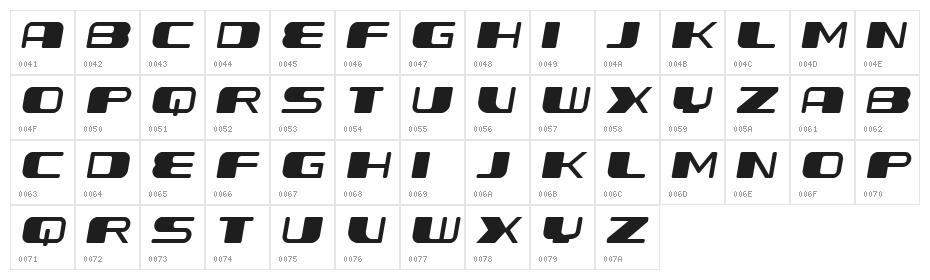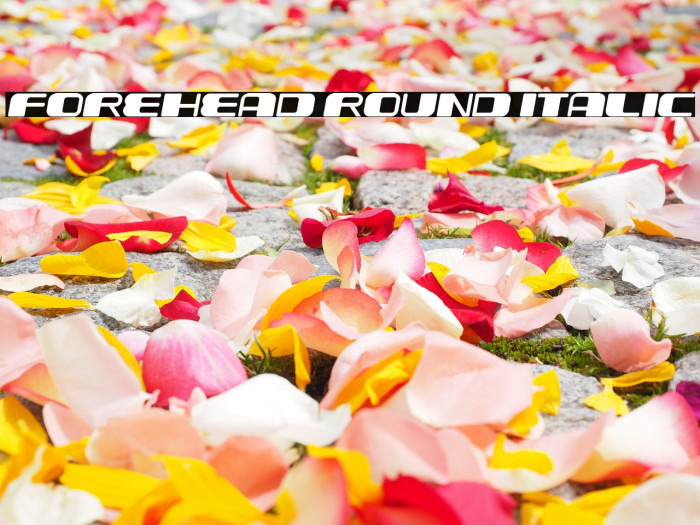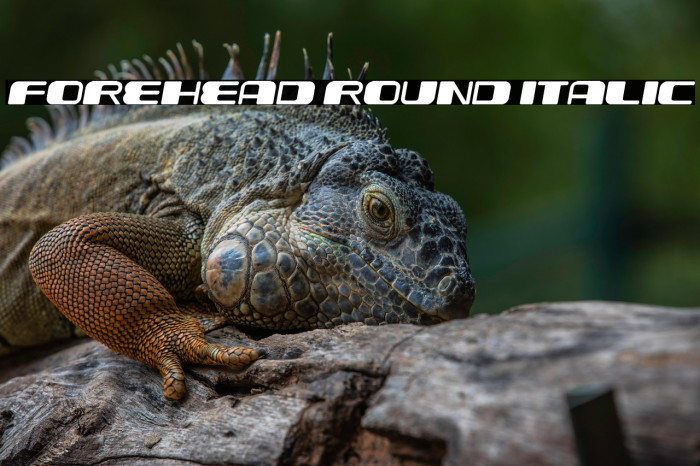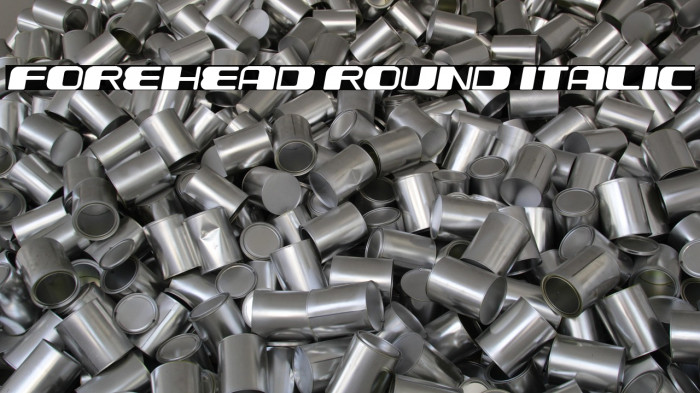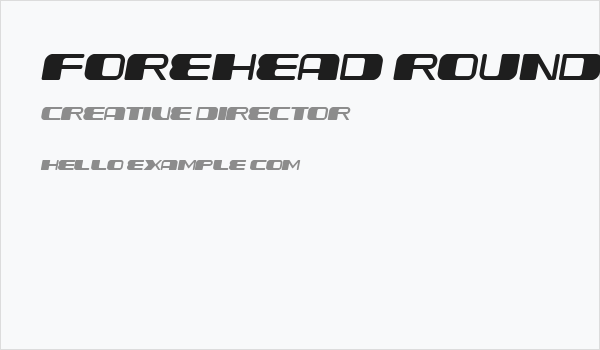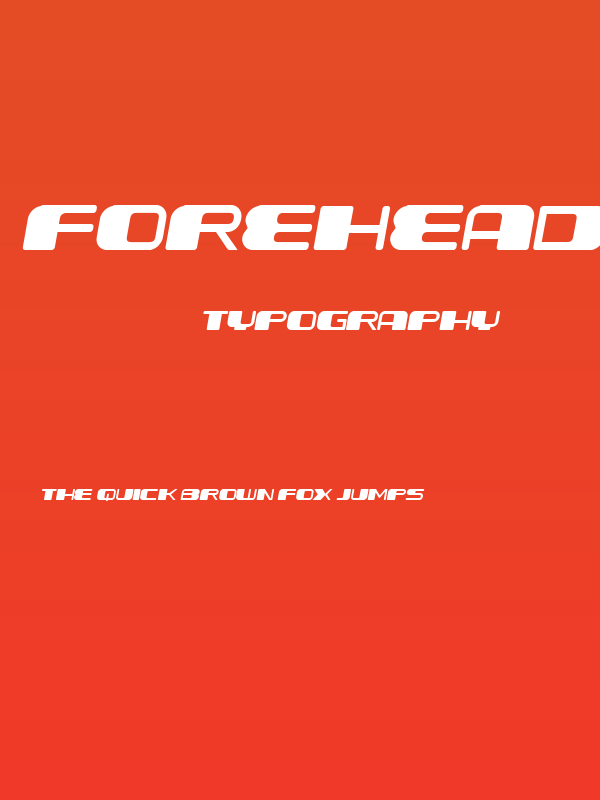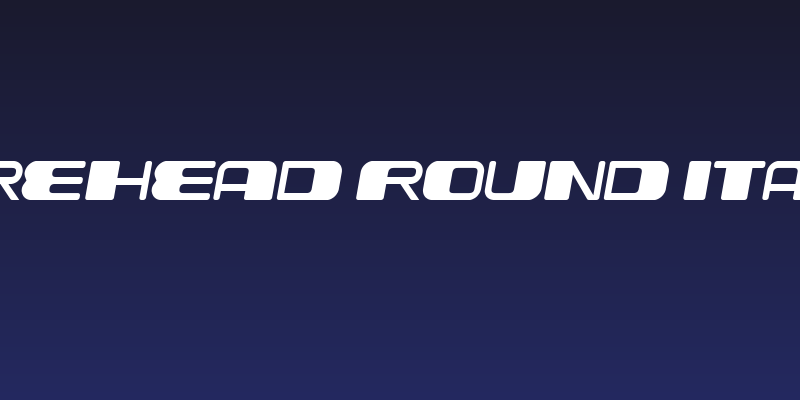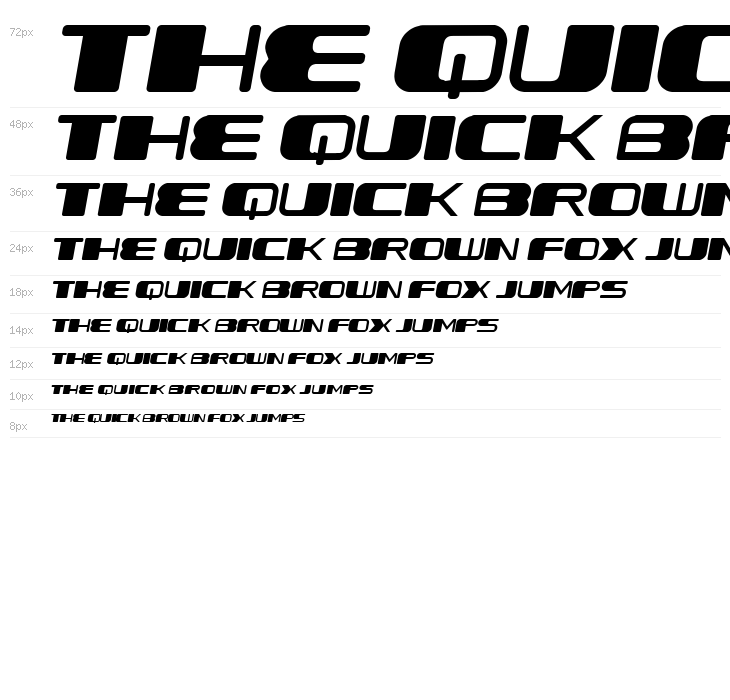
Forehead Round Italic Font
Forehead Round Italic Description
This font features a bold, rounded style with a distinct italic slant, giving it a dynamic and modern appearance. The characters are wide and have a substantial presence, making them stand out prominently. The rounded edges soften the overall look, while the italic angle adds a sense of motion and fluidity. The font maintains a consistent weight throughout, ensuring readability and uniformity. Its unique design makes it suitable for various creative applications where a bold statement is desired.
| Proposed Projects | Ideal for branding, headlines, posters, and any design project requiring a bold and modern aesthetic. |